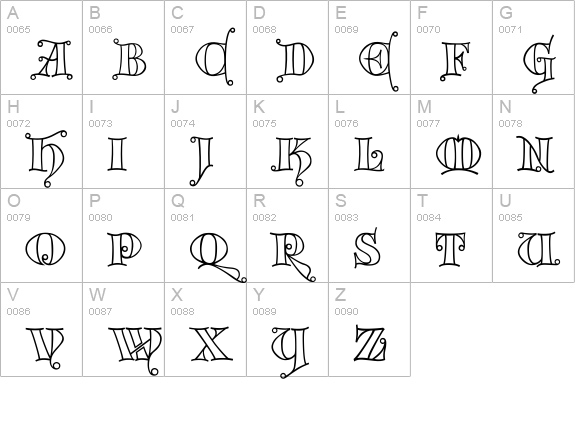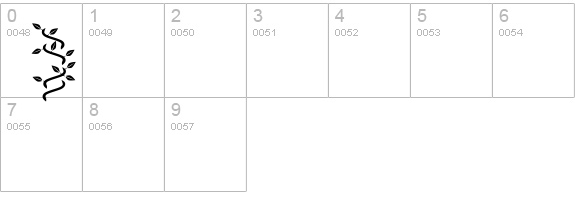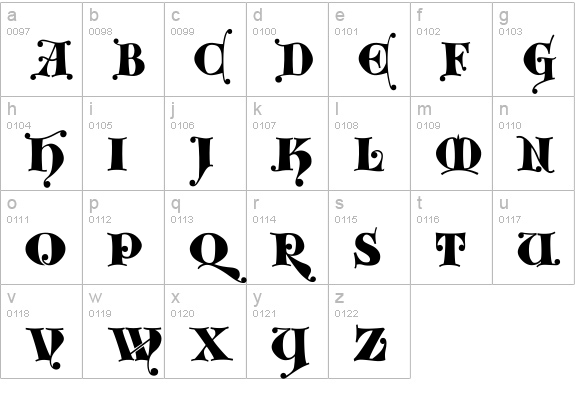
Kingthings Versalis is a captivating and versatile font that exudes elegance, charm, and a touch of whimsy. With its unique letterforms and intricate details, this font is sure to make a lasting impression on any design project. Designed with utmost care and precision, Kingthings Versalis is a true work of art. Each letter is meticulously crafted, blending classic elements with a contemporary twist. The result is a font that effortlessly combines tradition and innovation, making it perfect for a wide range of applications. From invitations and greeting cards to logos and branding materials, Kingthings Versalis shines in any context. Its clean lines and balanced proportions create a harmonious visual experience, while its playful curves add a sense of joy and warmth. Whether used for headlines, body text, or accents, this font adds a touch of sophistication to any design. What sets Kingthings Versalis apart is not only its exceptional aesthetic appeal but also its accessibility. This font is freely available to download at FontsMarket.com, allowing designers and enthusiasts alike to explore its endless possibilities. Its user-friendly nature makes it a breeze to work with, ensuring a seamless design process. So, whether you're a professional designer looking to elevate your projects or an aspiring creator seeking a font that stands out, Kingthings Versalis is the perfect choice. Its timeless elegance and versatility are sure to captivate and inspire, making every design truly remarkable.